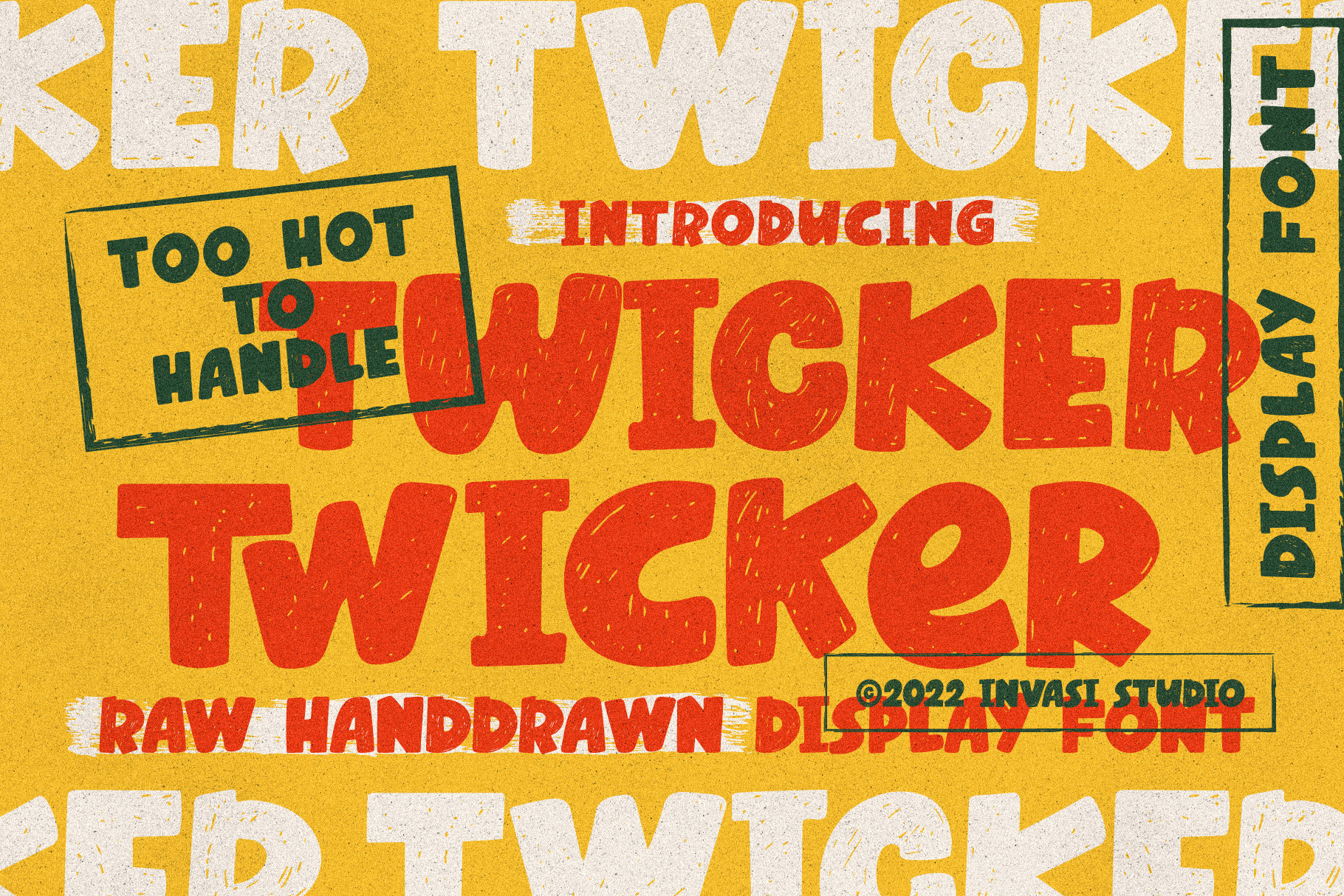
The Twicker font comes in playful sketch, textured, and grunge-shaded styles. Detail glyph appears with a bubble shape. With its unique hand-drawn look, it's very appealing. A variety of alternate glyphs and ligatures give you lots of options to fit your project. This is perfect for any branding project or packaging that needs a playful feel.
- Total 272 Glyph